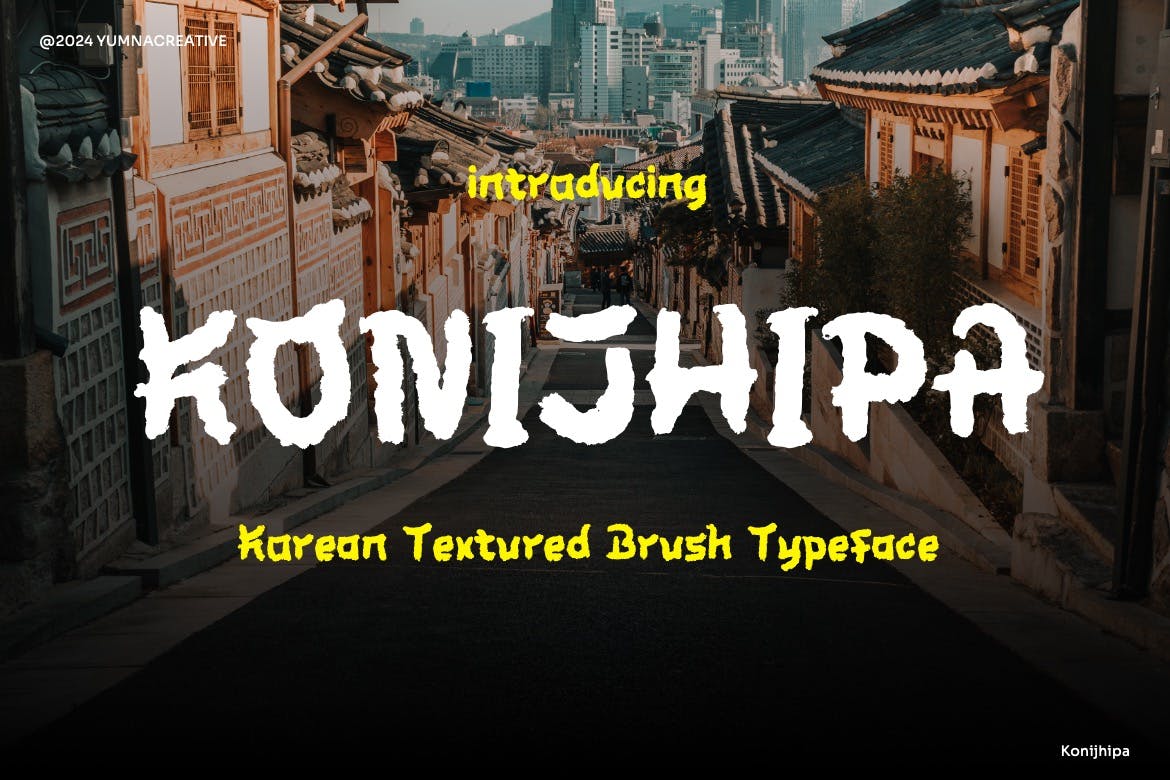
Konijhipa – Korean Texture Font
Konijhipa is a Korean texture font designed to enhance visual communication through its unique and eye-catching style. With a normal spacing and an optimum size suitable for large displays and posters, this font is perfect for creating striking graphics, signage, and promotional materials. It adds a distinctive cultural flair, making any project stand out with its artistic appeal.